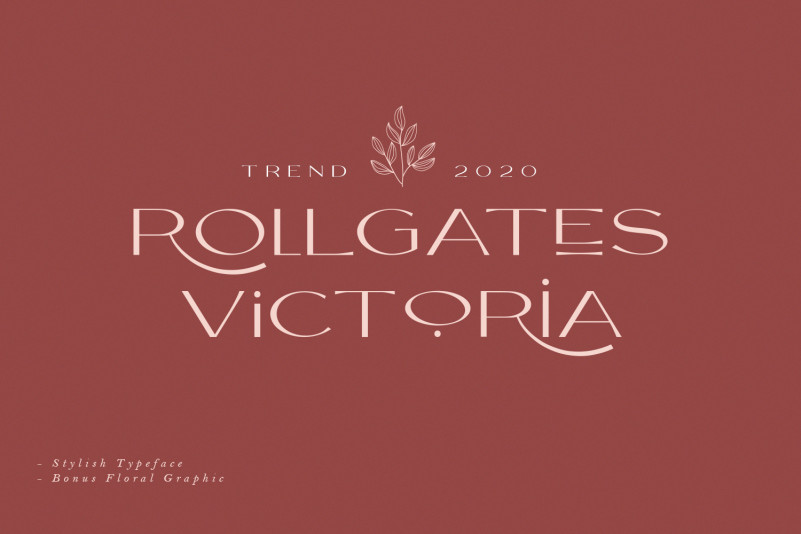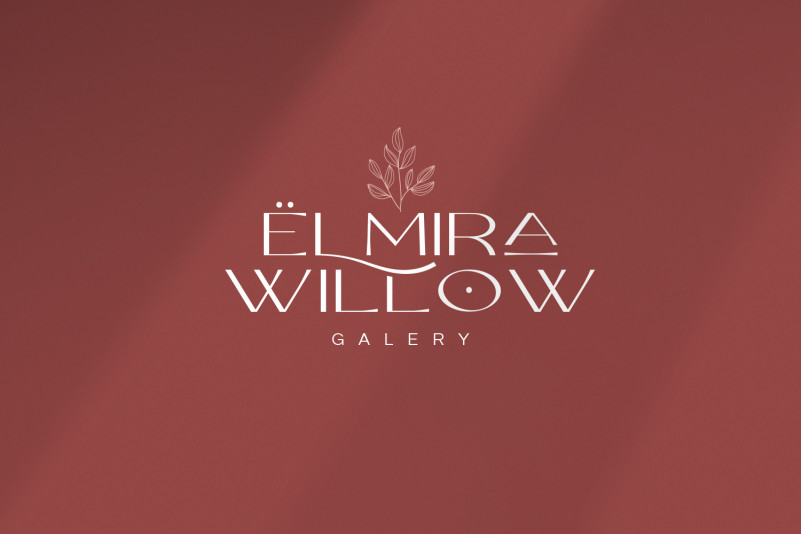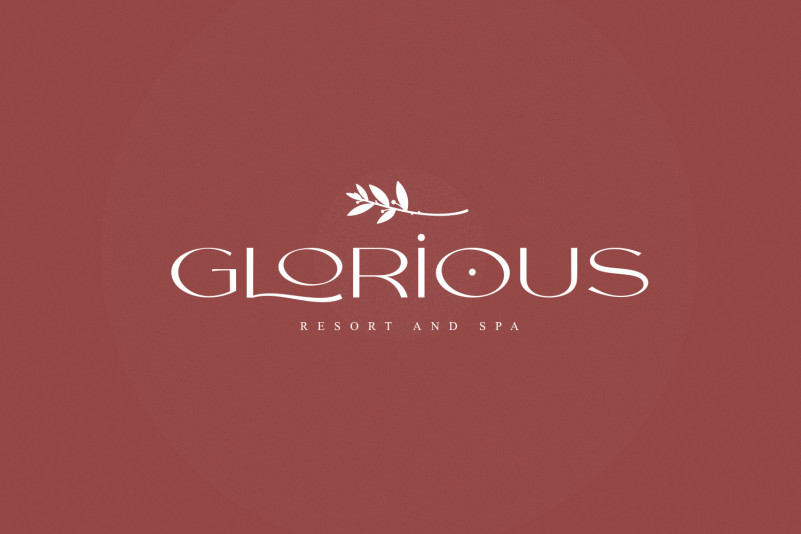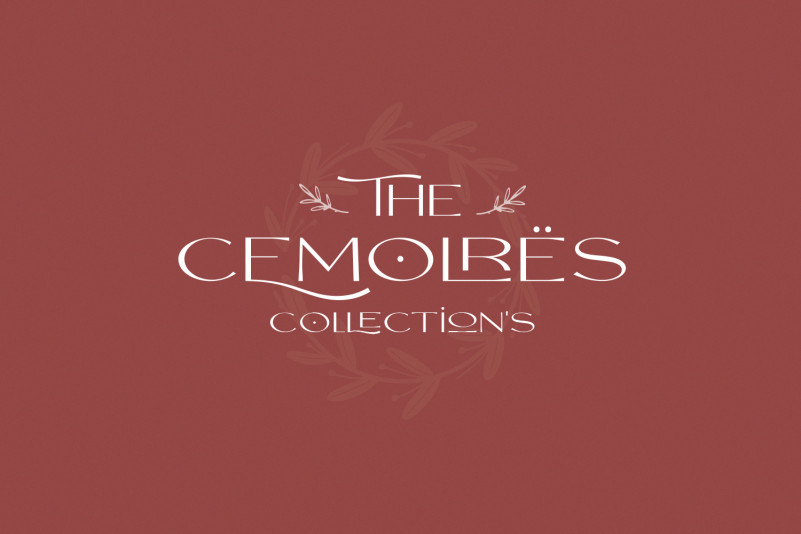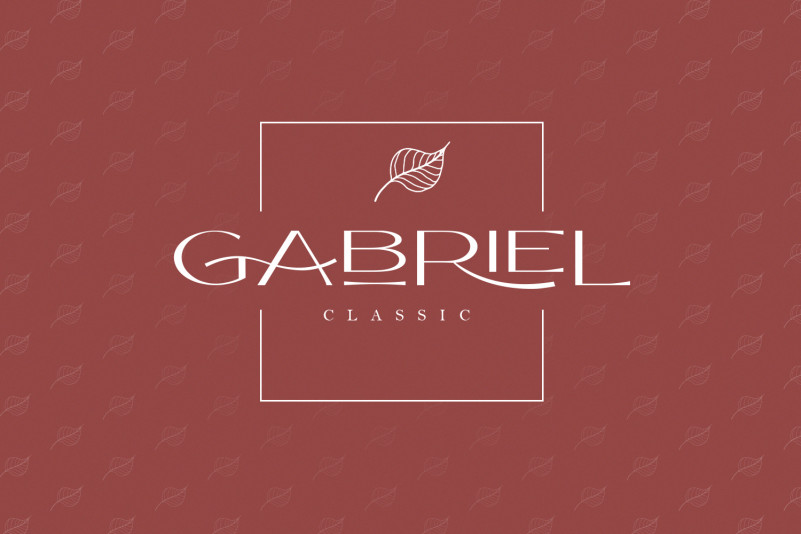
Rollgates Victoria Font
Rollgates Victoria Font is too much fun! Of all the fonts I have designed, this is my favorite. Thin strokes and delicate embellishments really do it for me and I hope it’s for you! You won’t find curves like this in regular fonts. This modern meets the classic, minimally meets the decorative. Look at the numbers … then, look again. They have curves of all kinds of unusual places. If you want to stand out then this is the font for you. Logo or title, fashion distribution to masthead, monogram or Instagram, Create beautiful art with this font. Rollgates Victoria Font can do it!
– All Caps, Numbers and Punctuation
– Bonus Floral Font
– Multilingual Support